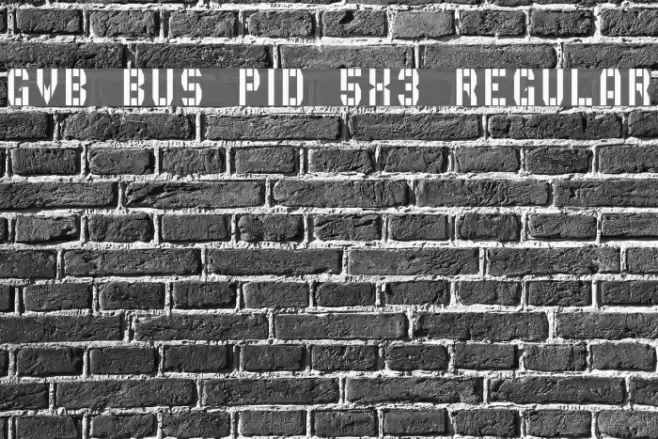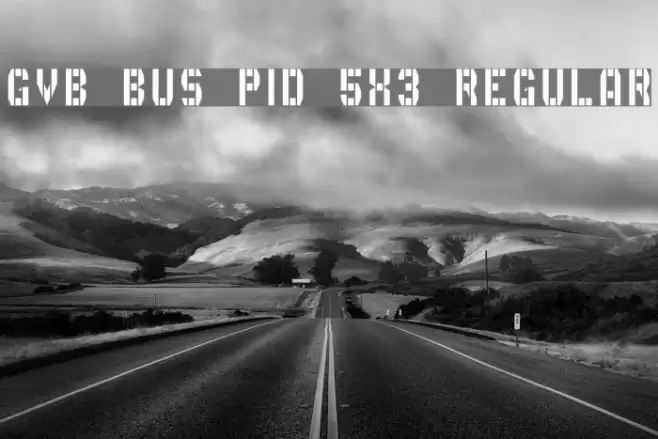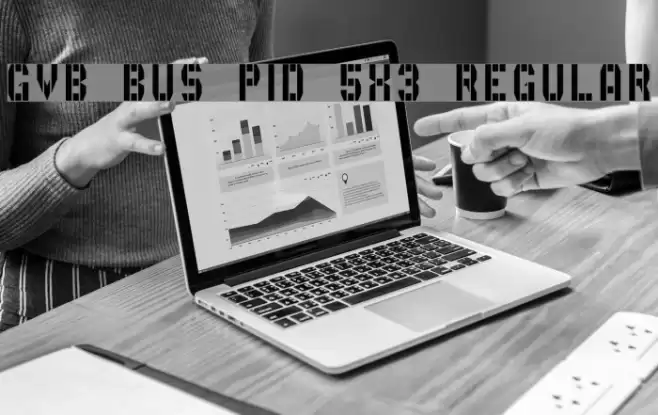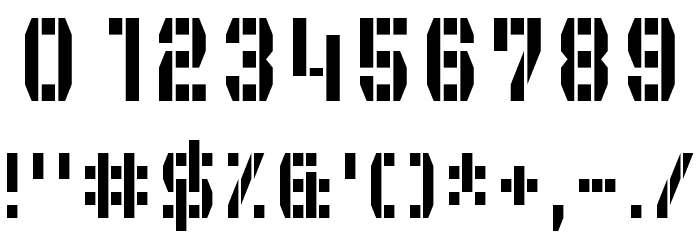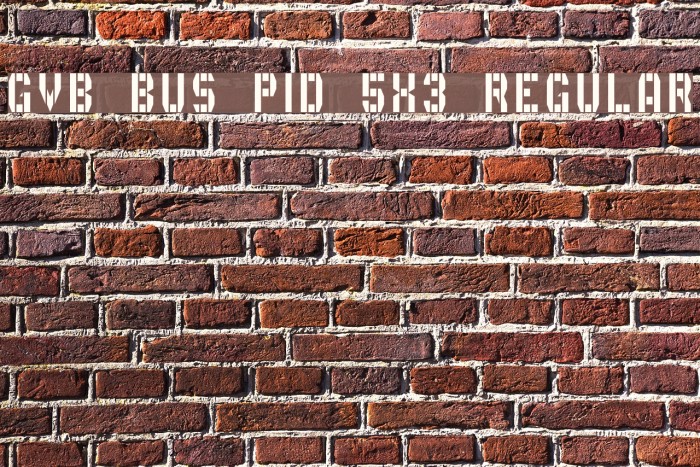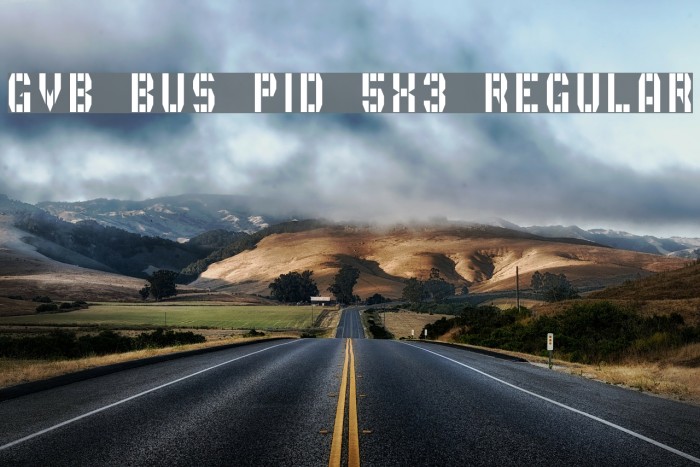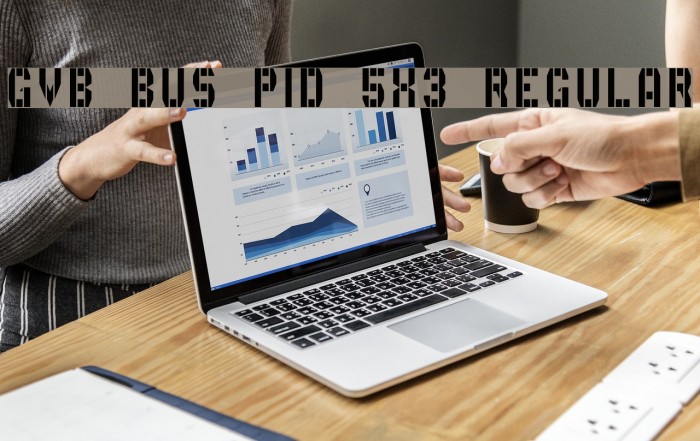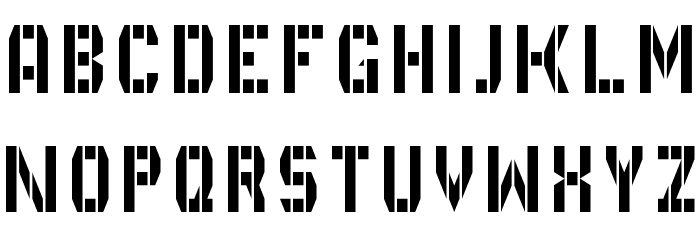
GVB Bus PID 5x3 Regular Font
GVB Bus PID 5x3 Regular Description
This font features a bold, geometric style with a stencil-like appearance. Each character is constructed using a grid-based design, giving it a pixelated, digital look. The letters and numbers are uniform in width, creating a cohesive and structured appearance. The font is highly legible, with distinct separations in each character that enhance readability. Its unique design makes it suitable for modern and tech-oriented projects, where a futuristic or industrial aesthetic is desired.
A bold, geometric stencil font with a digital, pixelated style from Uncategorized fonts.
- Proposed Projects: Ideal for digital displays, tech branding, futuristic designs, and industrial-themed projects.
- Use Case: Headlines, Logos, Digital displays